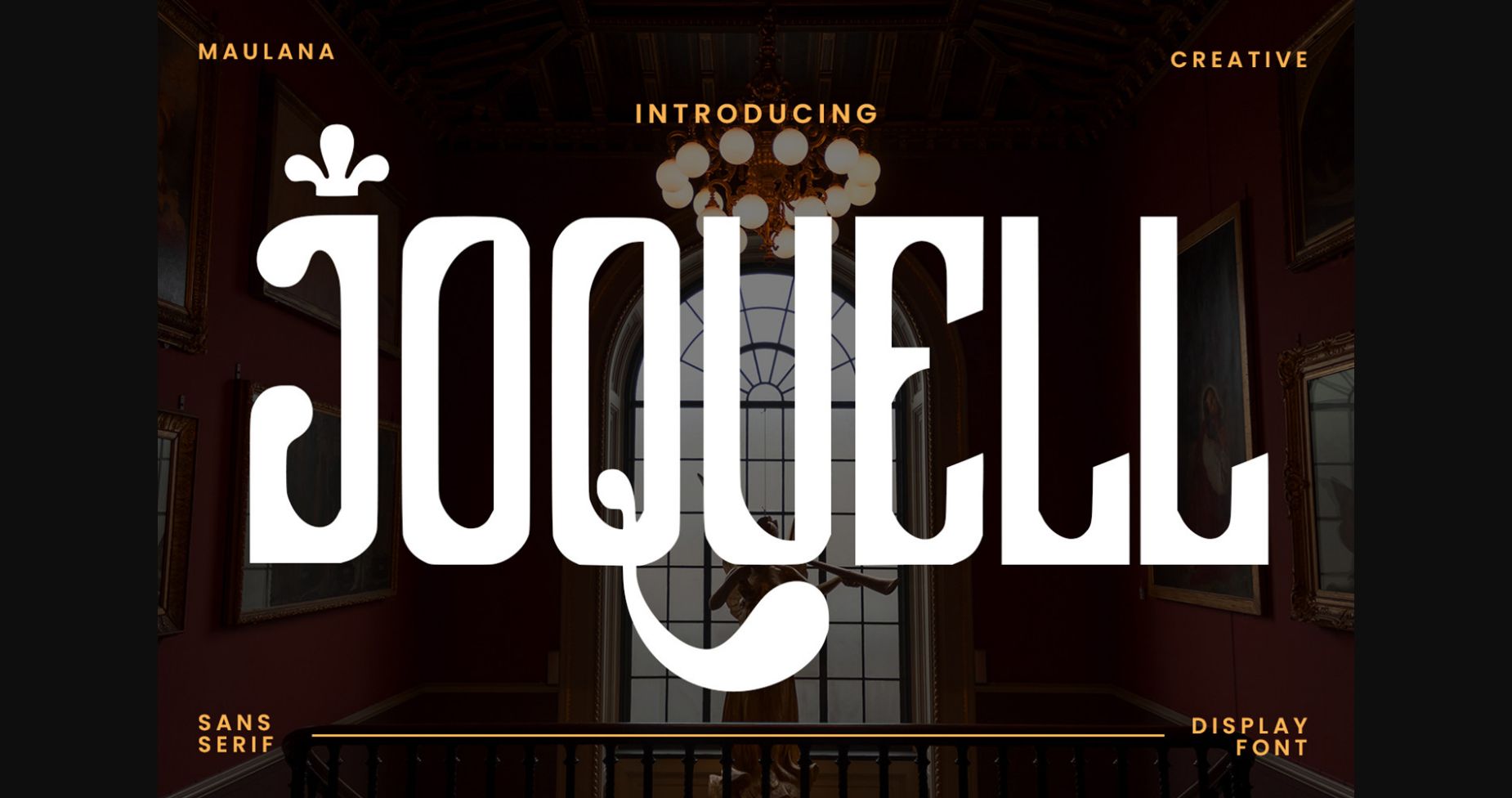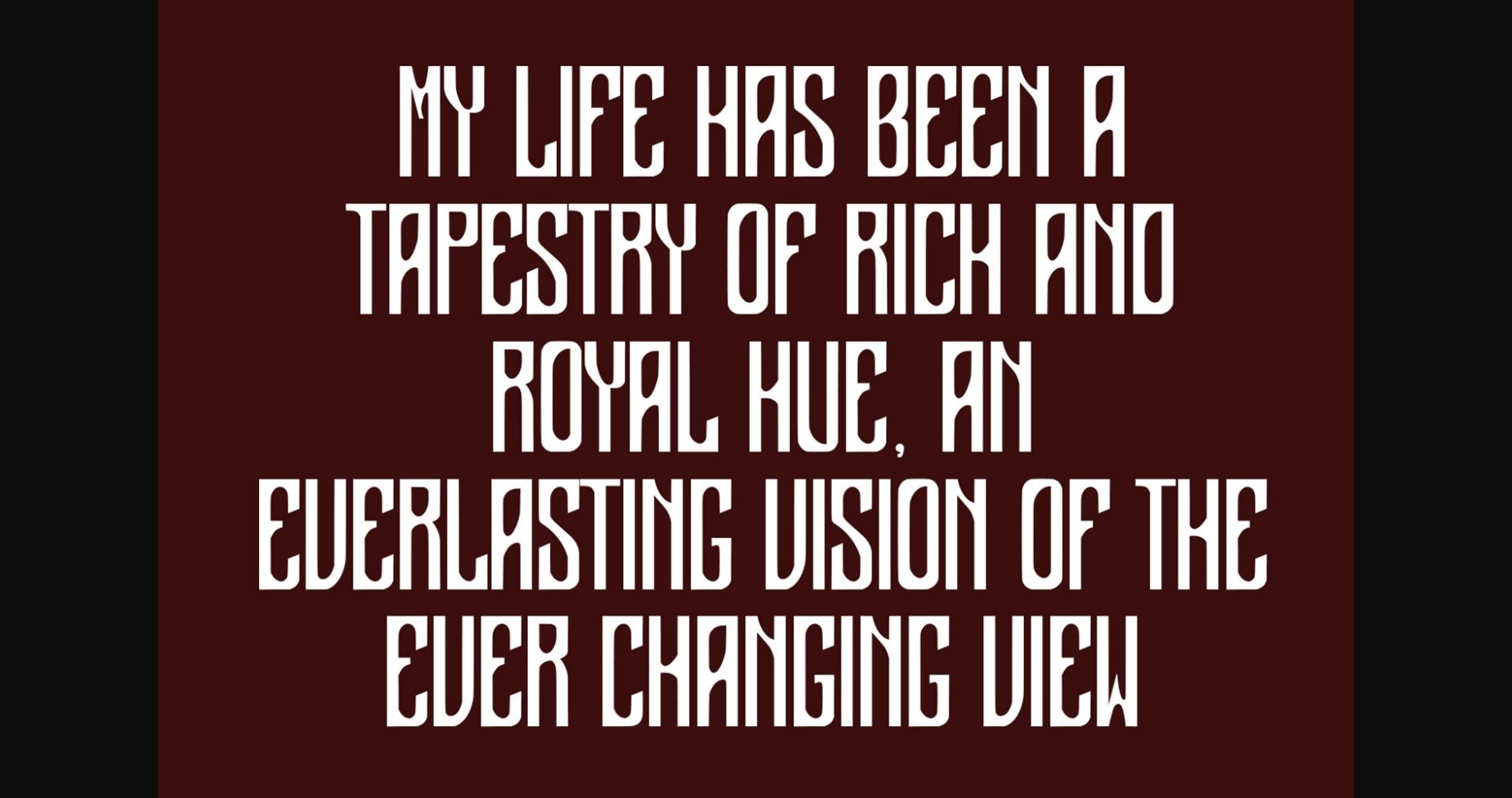
About Joquell Font
Joquell is a Classic sans serif display font. Bold strokes, fun character with a bit of ligature and alternates. This font is good for logo design, Social media, Movie Titles, Books Titles, short text even long text letters, and is good for your secondary text font with script or serif. Make a stunning work with Joquell font.